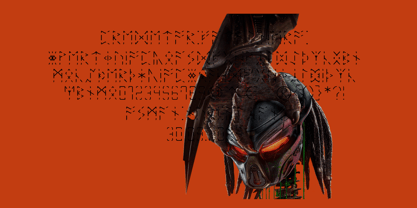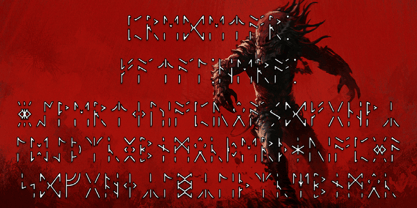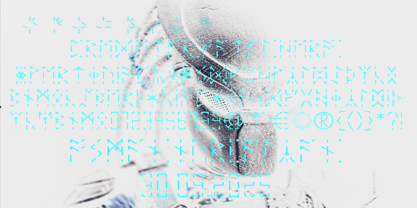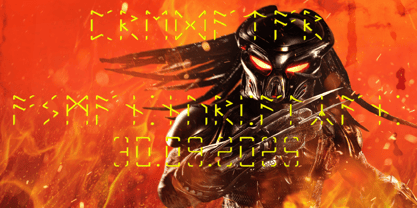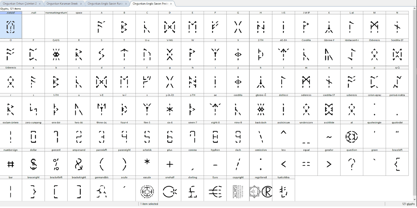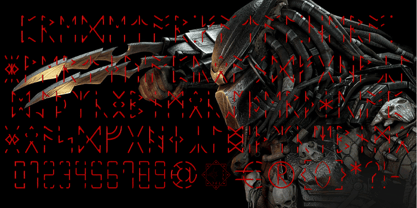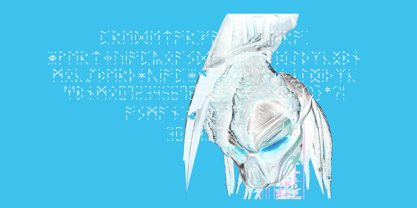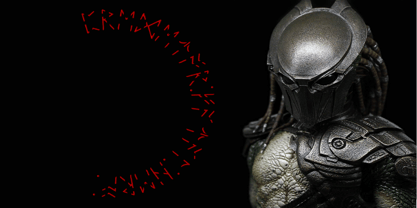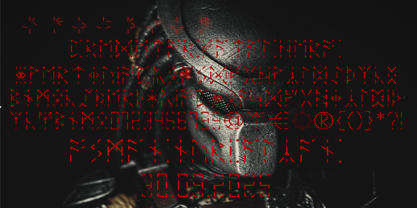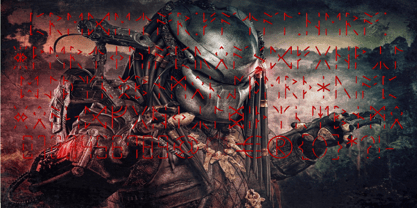
Ongunkan Anglo Saxon Predetor
The Ongunkan Anglo Saxon Predetor Font Family was designed by Osman Nuri ALKAN and published by Runic World Tamgacı. Ongunkan Anglo Saxon Predetor contains 1 styles. More about this family
Inspired by the Anglo-Saxon runic script and the Yautja alphabet from the film "Predator," I created a visual design that was both similar and distinct. It could be used in a variety of applications, including fantasy writing, posters, and games. It could be written as a book, but initially, it would be too far outside our visual perception, so our brains would be shocked, and it would become readable as we acclimate.
As my interest in rune writings grew, it became inevitable for me to make my own fonts. It was time to put all these years of hard work into action. This foundry, named Runic World Tamgacı, was prepared as a platform for the distribution of font studies developed on Old European Runic inscriptions, Old Asian Runic inscriptions, Old Hungarian Runic inscriptions, Runic inscriptions found in Africa and Arabian geography, and Italic inscriptions such as Etruscan and Iberian. These fonts, which have high aesthetic design and a full list of letters, will serve as a wide source especially for academic studies and amateur researchers, including derivative letters. It will also please enthusiasts interested in this field. The inventory of the foundry will be constantly updated and expanded with new additions to the fonts of these mysterious ancient inscriptions. These Runic studies were made from scratch by looking at the relevant sources.